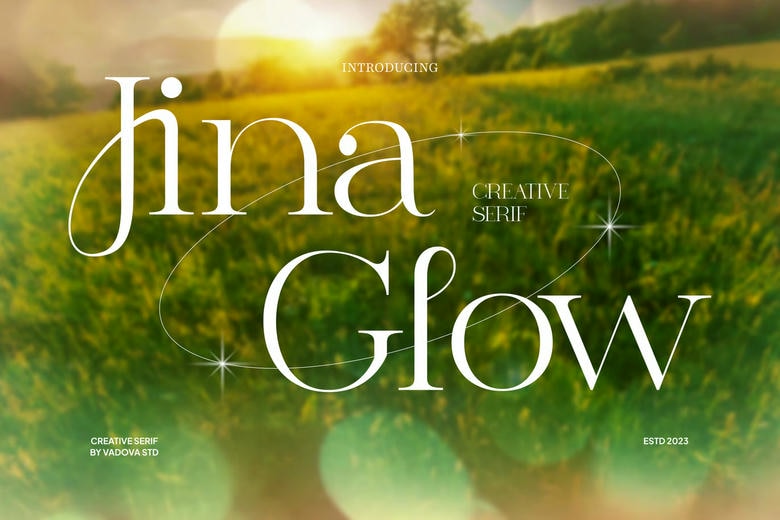
Jina Glow Font
Jina Glow is a contemporary serif font that brings the mingling of classicism and artistic flare together, amplified by curvy nature and portioning of colorful style. Jina Glow is a cool blend of fresh and high-quality back spread, product packaging, seasonal extra and artistic branding.
The airy letter shapes and smooth flow in it are ideal to capture a nostalgic yet modern mood in logos promoting growth, beauty and renewal.
Jina Glow Serif Font